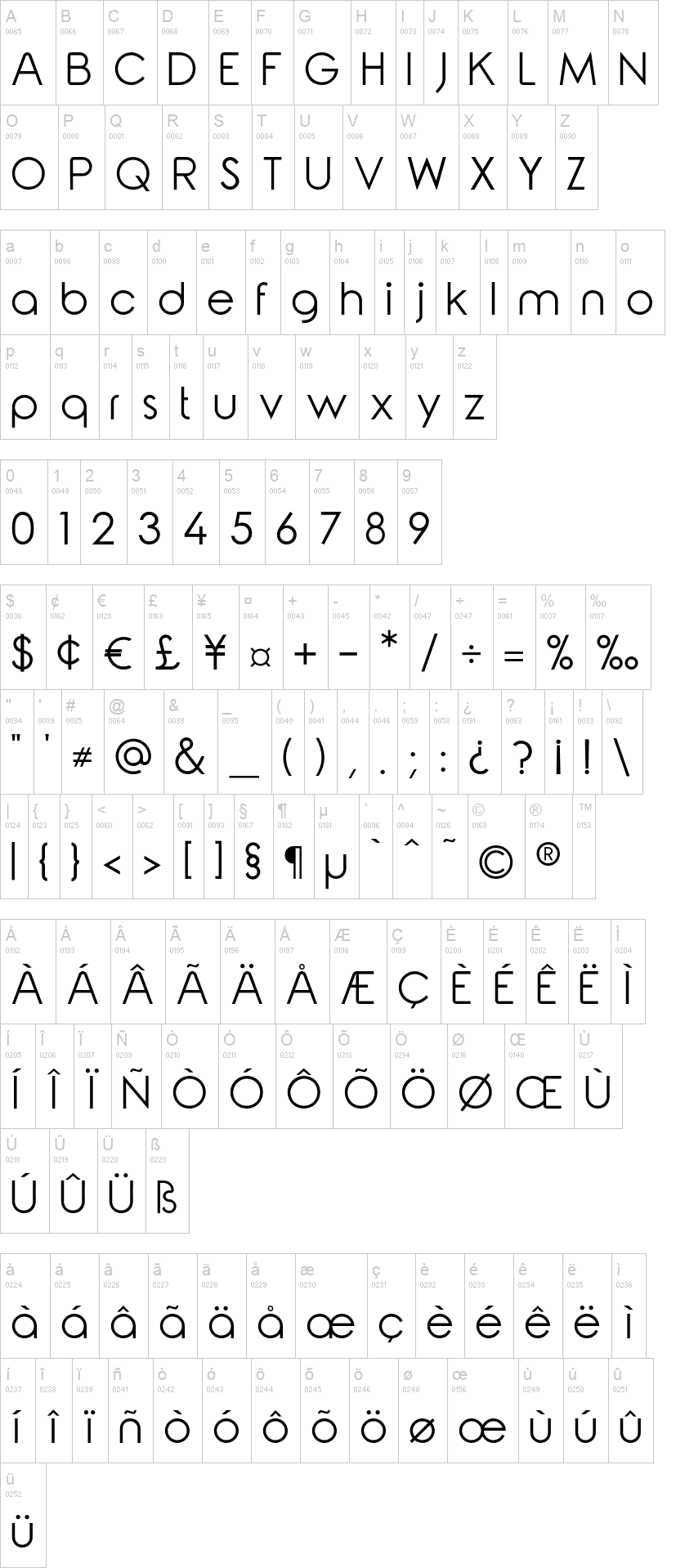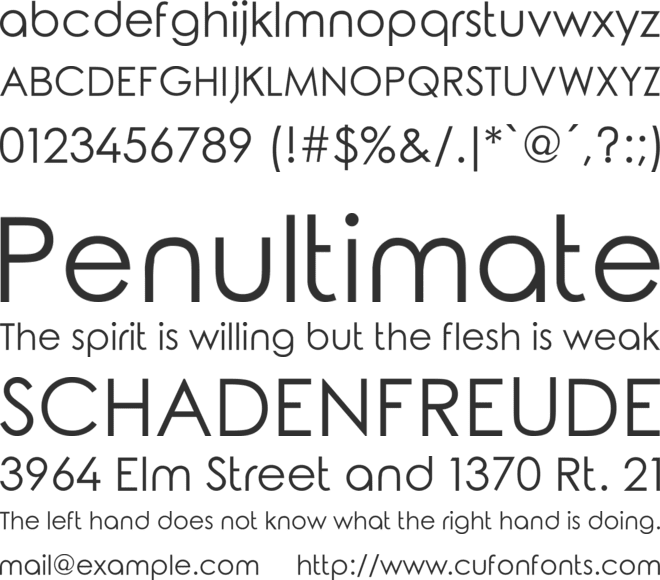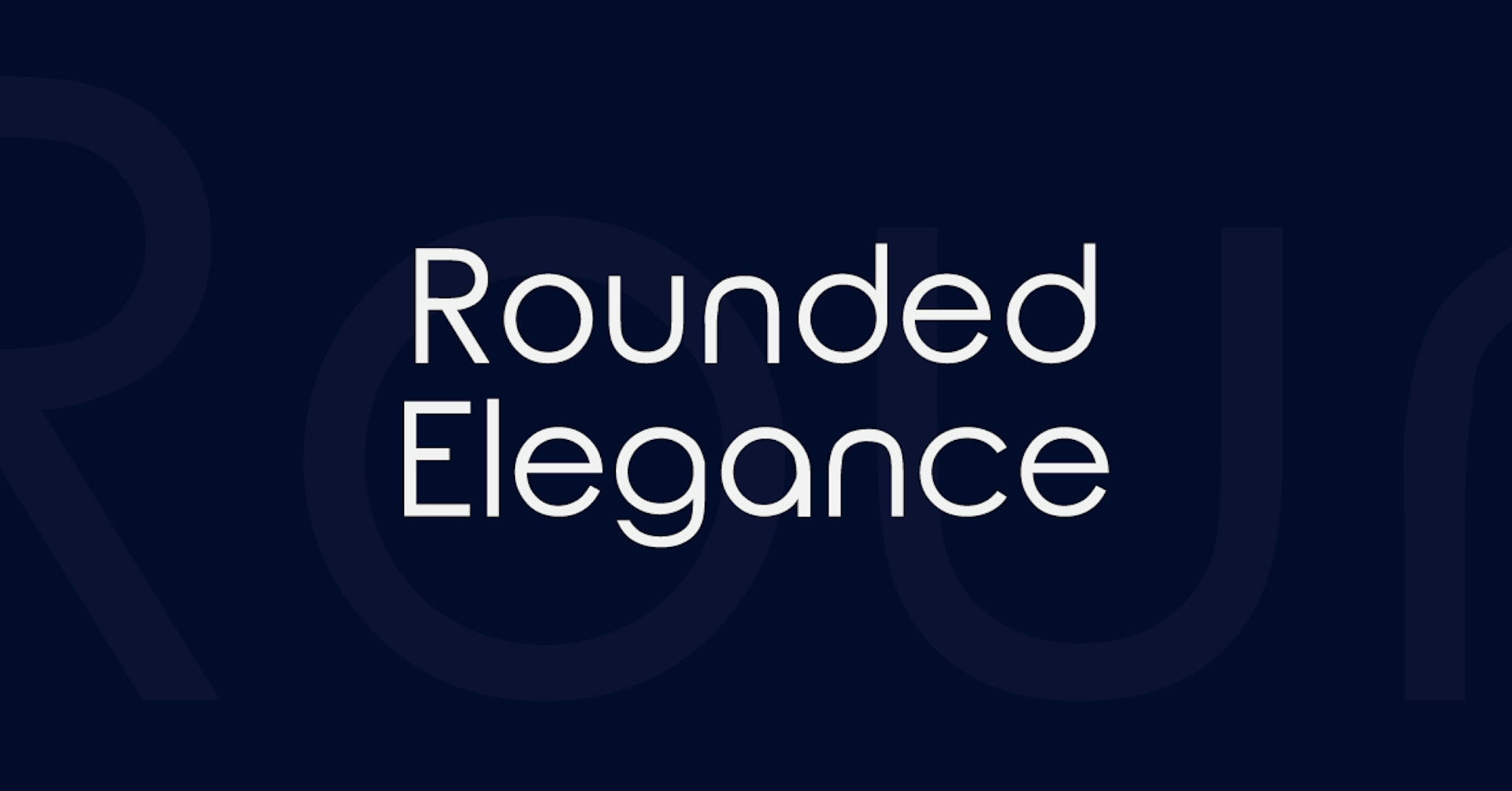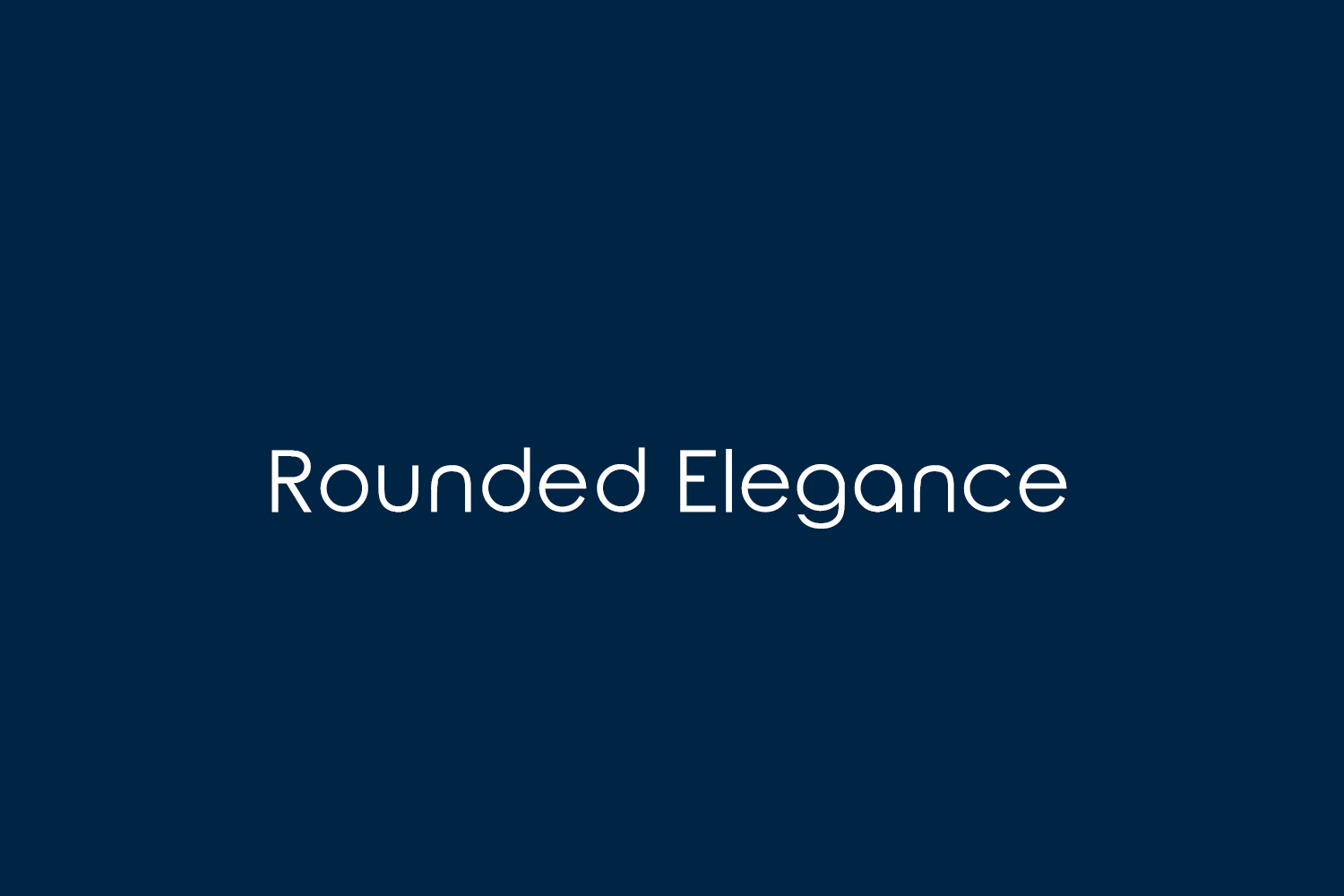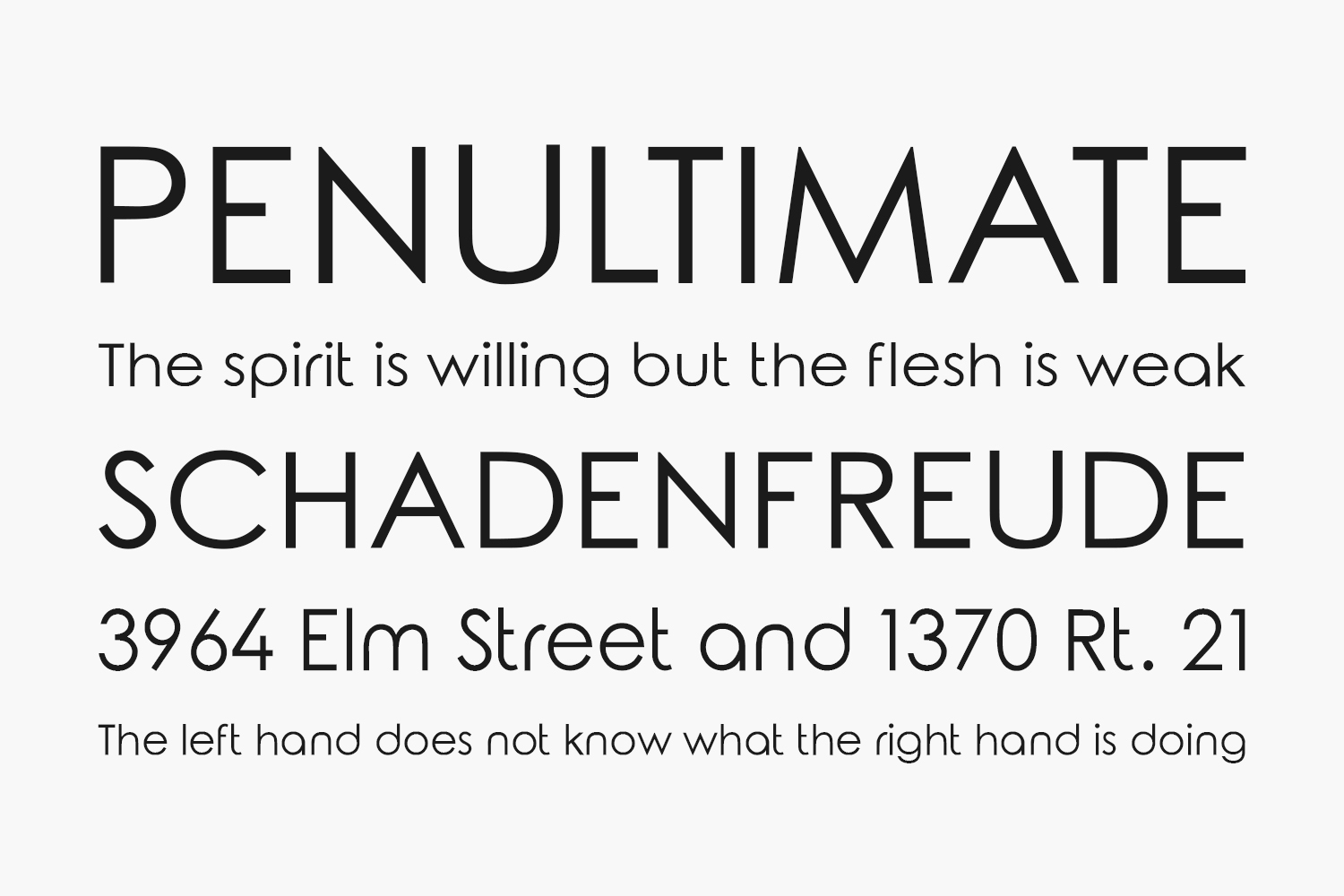
Rounded Elegance Font
Rounded Elegance Font - Web complete family of 10 fonts: Web discover our collection of free elegant, rounded fonts, perfect for adding a modern, stylish, and soft touch to any design project. Rounded elegance font family was designed by douglas charles cunha and published. Web 1,195,753 downloads (116 yesterday) 41 comments 100% free.
Rounded elegance font family was designed by douglas charles cunha and published. Web complete family of 10 fonts: Web discover our collection of free elegant, rounded fonts, perfect for adding a modern, stylish, and soft touch to any design project. Web 1,195,753 downloads (116 yesterday) 41 comments 100% free.
Web complete family of 10 fonts: Web 1,195,753 downloads (116 yesterday) 41 comments 100% free. Web discover our collection of free elegant, rounded fonts, perfect for adding a modern, stylish, and soft touch to any design project. Rounded elegance font family was designed by douglas charles cunha and published.
Rounded Elegance Font
Rounded elegance font family was designed by douglas charles cunha and published. Web discover our collection of free elegant, rounded fonts, perfect for adding a modern, stylish, and soft touch to any design project. Web 1,195,753 downloads (116 yesterday) 41 comments 100% free. Web complete family of 10 fonts:
Web 1,195,753 downloads (116 yesterday) 41 comments 100% free. Web complete family of 10 fonts: Rounded elegance font family was designed by douglas charles cunha and published. Web discover our collection of free elegant, rounded fonts, perfect for adding a modern, stylish, and soft touch to any design project.
Web complete family of 10 fonts: Web discover our collection of free elegant, rounded fonts, perfect for adding a modern, stylish, and soft touch to any design project. Rounded elegance font family was designed by douglas charles cunha and published. Web 1,195,753 downloads (116 yesterday) 41 comments 100% free.
Web complete family of 10 fonts: Web discover our collection of free elegant, rounded fonts, perfect for adding a modern, stylish, and soft touch to any design project. Web 1,195,753 downloads (116 yesterday) 41 comments 100% free. Rounded elegance font family was designed by douglas charles cunha and published.
Rounded elegance font family was designed by douglas charles cunha and published. Web complete family of 10 fonts: Web discover our collection of free elegant, rounded fonts, perfect for adding a modern, stylish, and soft touch to any design project. Web 1,195,753 downloads (116 yesterday) 41 comments 100% free.
Web complete family of 10 fonts: Rounded elegance font family was designed by douglas charles cunha and published. Web discover our collection of free elegant, rounded fonts, perfect for adding a modern, stylish, and soft touch to any design project. Web 1,195,753 downloads (116 yesterday) 41 comments 100% free.
Rounded elegance font family was designed by douglas charles cunha and published. Web discover our collection of free elegant, rounded fonts, perfect for adding a modern, stylish, and soft touch to any design project. Web complete family of 10 fonts: Web 1,195,753 downloads (116 yesterday) 41 comments 100% free.
Police Rounded Elegance Télécharger
Web discover our collection of free elegant, rounded fonts, perfect for adding a modern, stylish, and soft touch to any design project. Web 1,195,753 downloads (116 yesterday) 41 comments 100% free. Rounded elegance font family was designed by douglas charles cunha and published. Web complete family of 10 fonts:
Rounded Elegance Fonts Shmonts
Rounded elegance font family was designed by douglas charles cunha and published. Web complete family of 10 fonts: Web discover our collection of free elegant, rounded fonts, perfect for adding a modern, stylish, and soft touch to any design project. Web 1,195,753 downloads (116 yesterday) 41 comments 100% free.
Rounded Elegance Fonts Shmonts
Web discover our collection of free elegant, rounded fonts, perfect for adding a modern, stylish, and soft touch to any design project. Rounded elegance font family was designed by douglas charles cunha and published. Web 1,195,753 downloads (116 yesterday) 41 comments 100% free. Web complete family of 10 fonts:
Web Discover Our Collection Of Free Elegant, Rounded Fonts, Perfect For Adding A Modern, Stylish, And Soft Touch To Any Design Project.
Rounded elegance font family was designed by douglas charles cunha and published. Web complete family of 10 fonts: Web 1,195,753 downloads (116 yesterday) 41 comments 100% free.